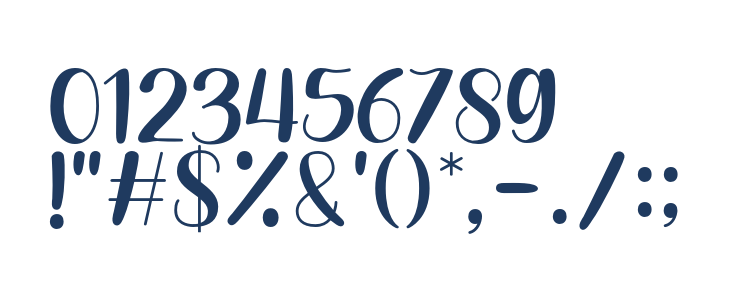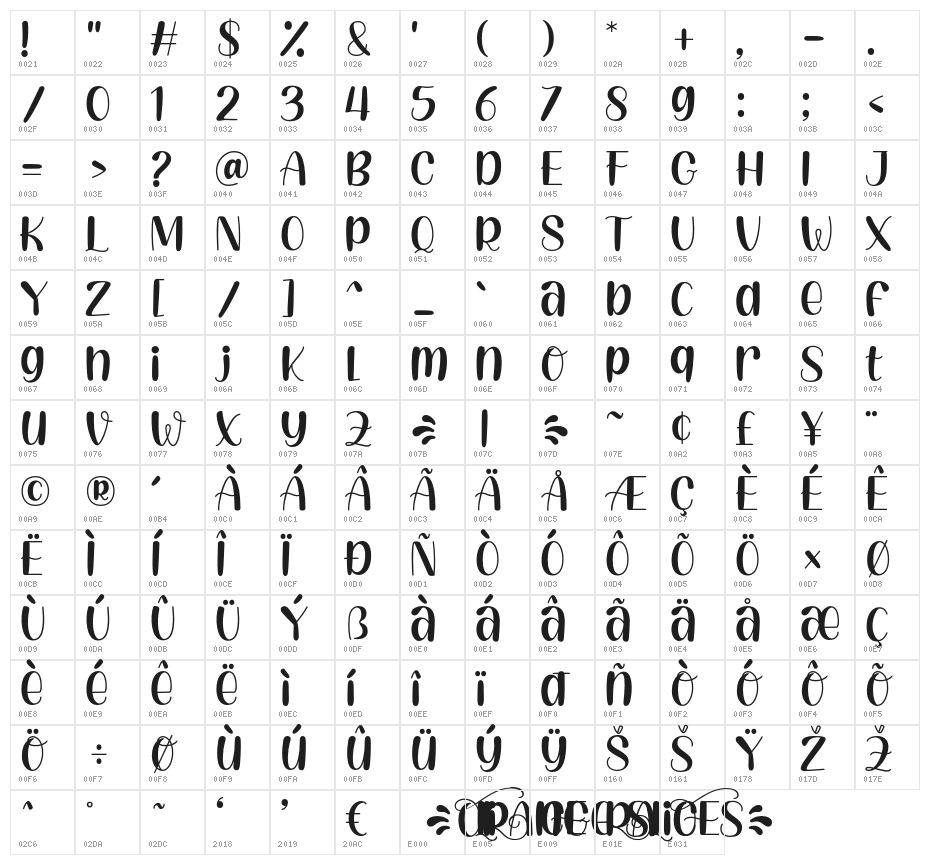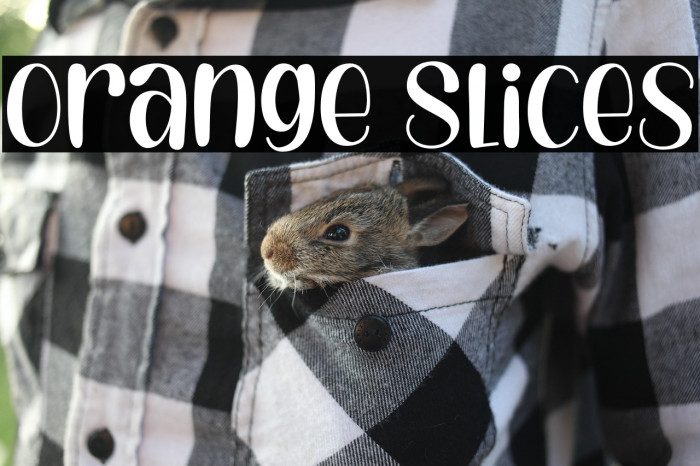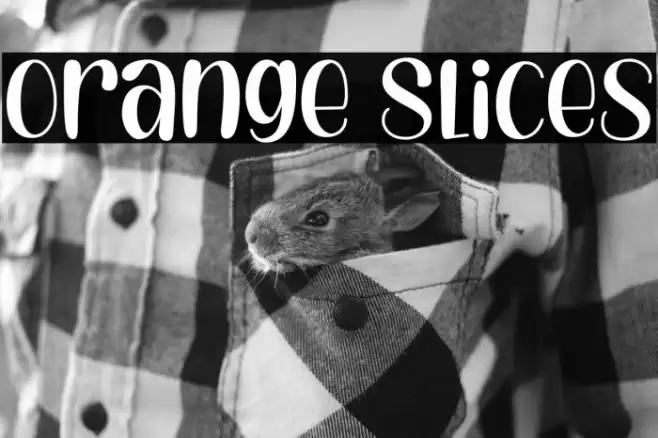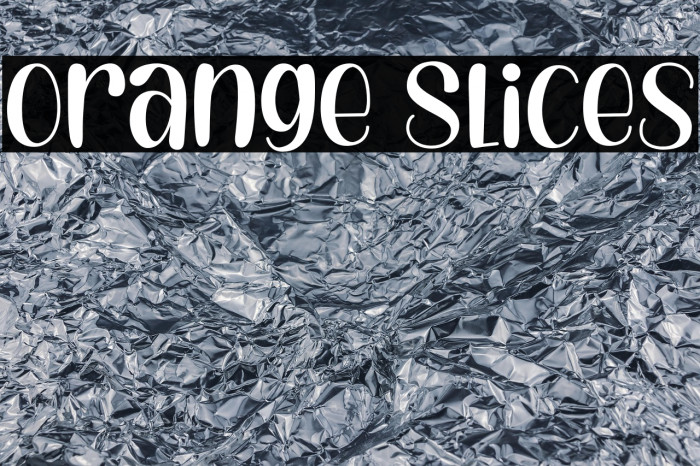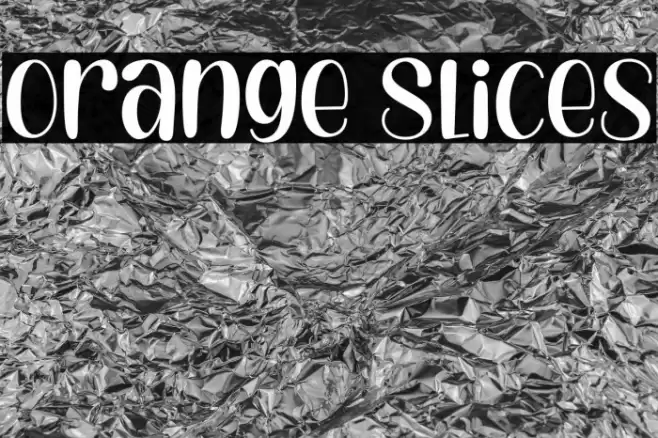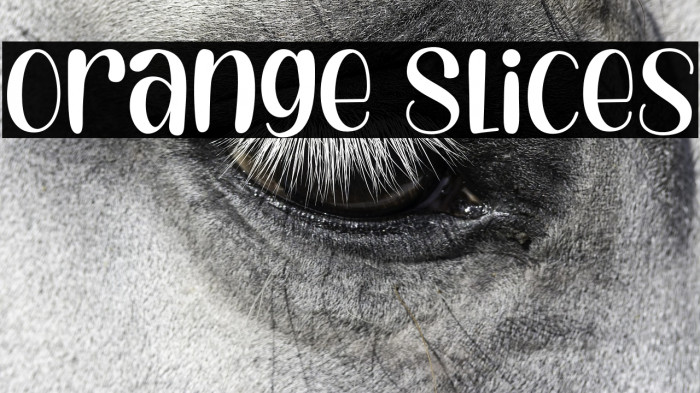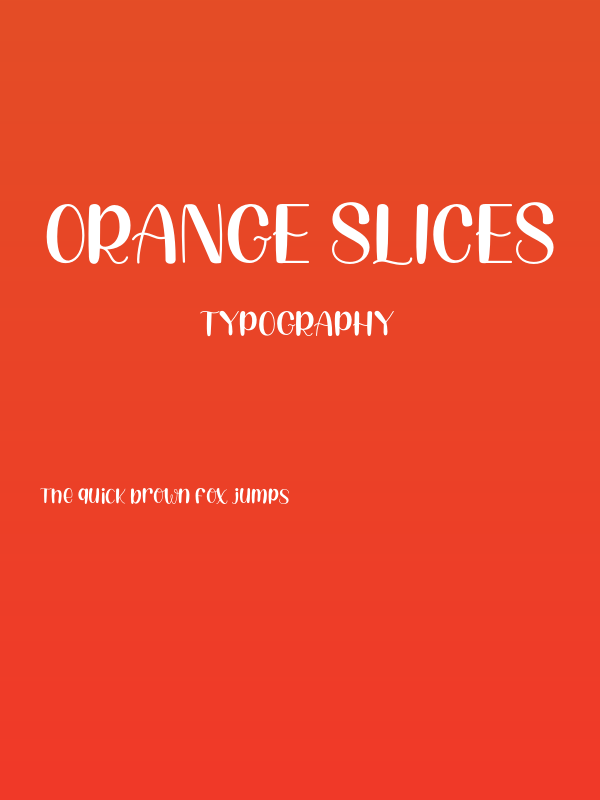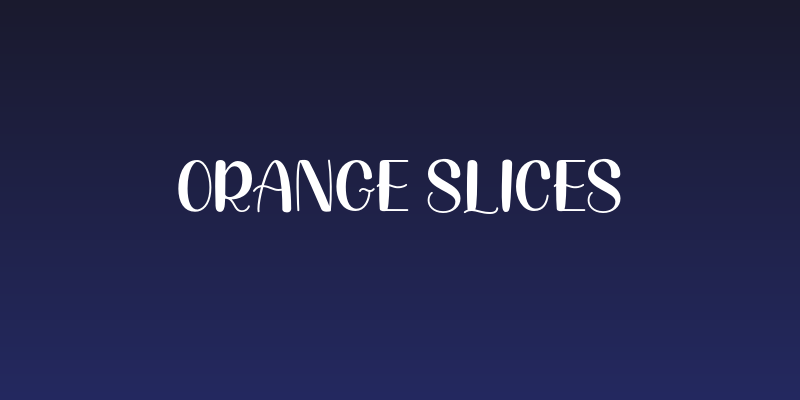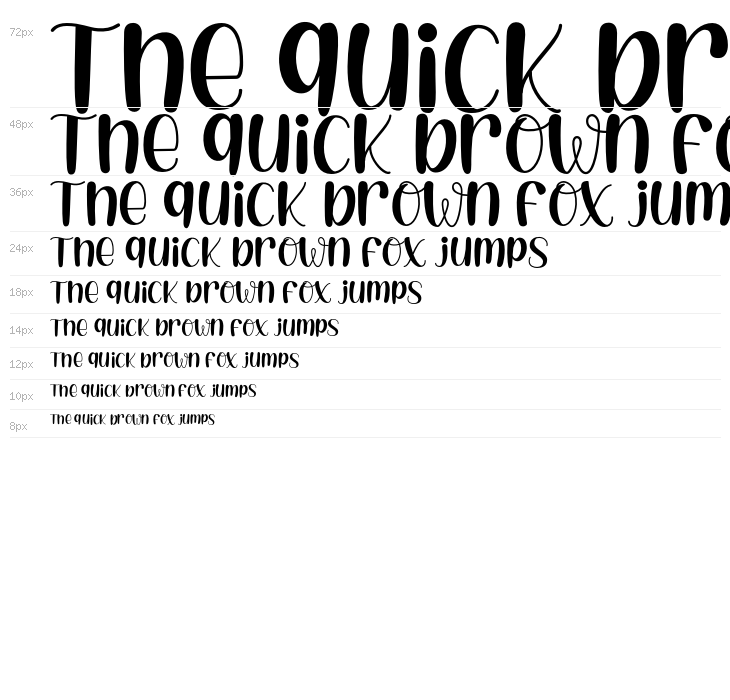
Orange Slices Font
Orange Slices Description
This playful and whimsical font features a unique blend of bold and thin strokes, creating a lively and dynamic appearance. The uppercase letters are characterized by their rounded and slightly exaggerated forms, while the lowercase letters maintain a consistent flow with a touch of elegance. The numerals are bold and easy to read, complementing the overall style. Special characters are creatively designed, adding to the font's charm. This font exudes a sense of fun and creativity, making it ideal for projects that require a touch of personality and flair.